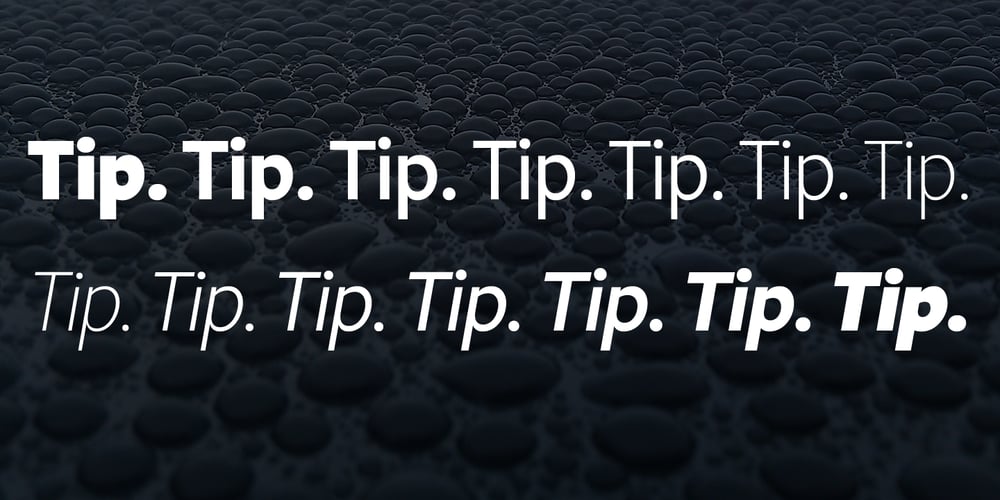
Tip font
Tip Font Family was designed by Tomi Haaparanta and published by Suomi. Tip contains 13 styles and family package options. New, slightly calligraphic sans family with seven weights, Roman and Italic, all with Old Style Numerals and Small Caps, for both headlines and body text use.